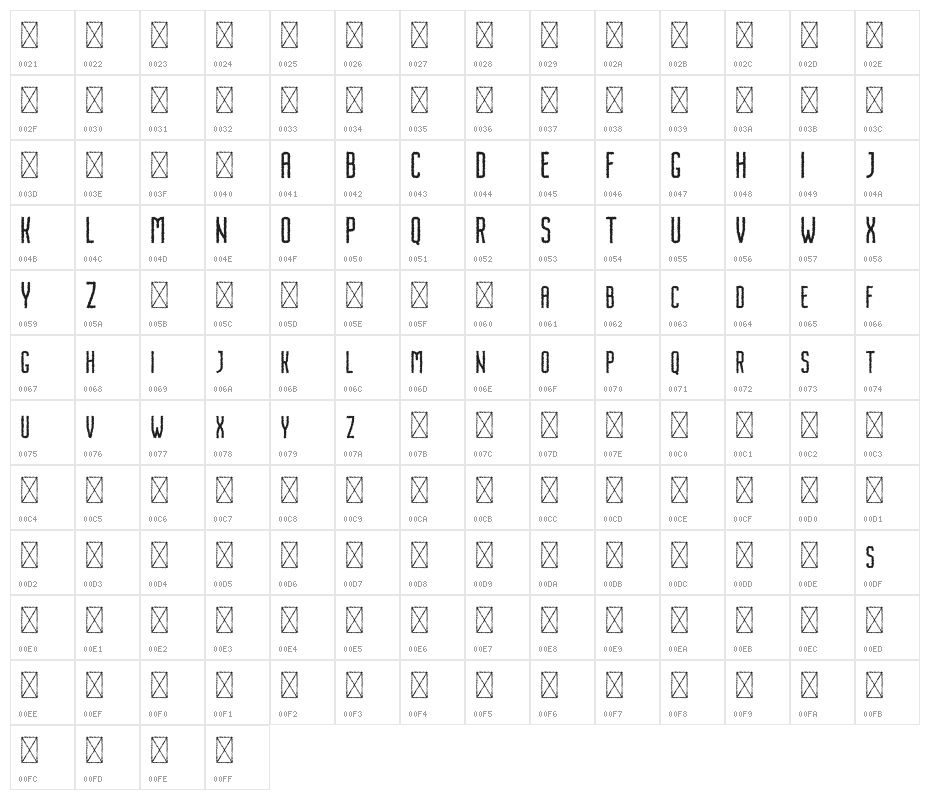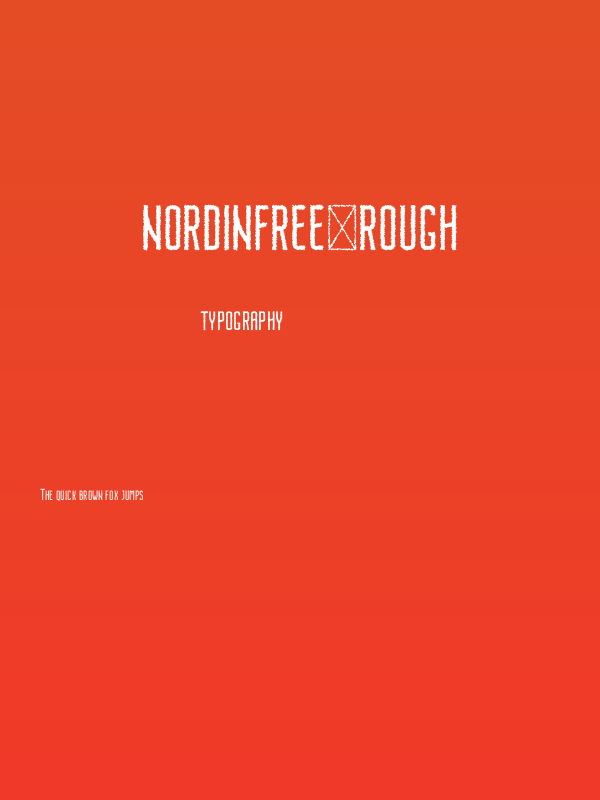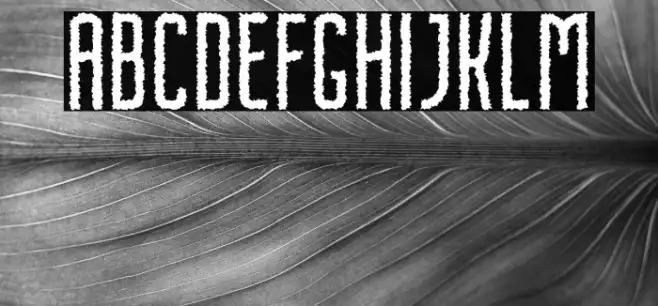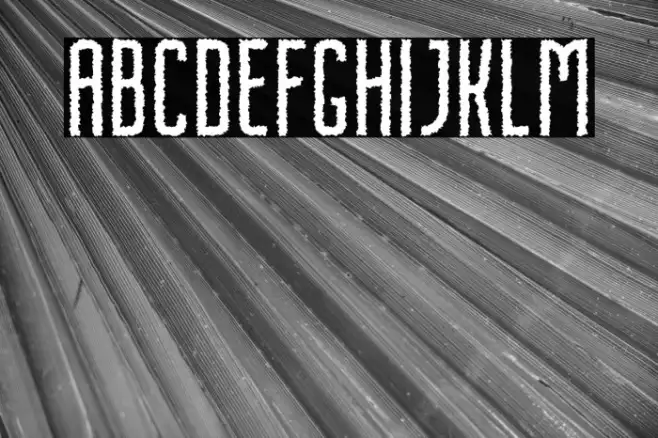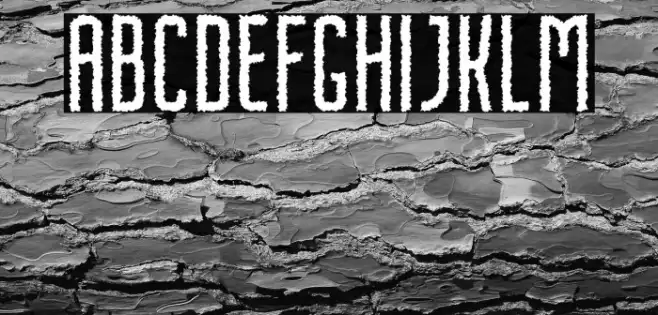
NordinFree-Rough Font
NordinFree-Rough Description
This font features a rough, textured appearance that gives it a hand-drawn, rustic feel. The uppercase letters are tall and narrow, with a slightly uneven edge that adds to its organic charm. The characters are consistently spaced, maintaining a uniform look despite the rough texture. This style is reminiscent of vintage or handcrafted signage, making it ideal for projects that require a touch of authenticity and character. The font's unique texture makes it stand out, providing a bold statement without being overly aggressive.
| Proposed Projects | Ideal for branding, packaging, posters, and any project needing a rustic or handcrafted aesthetic. |